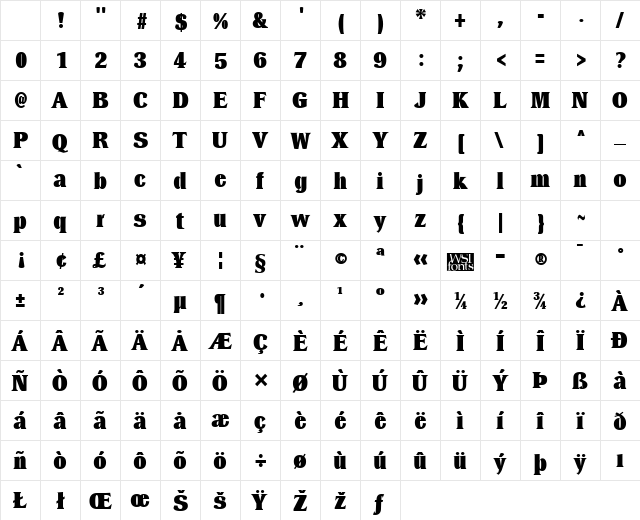
Dressel Black Regular
Complete Dressel Black Regular glyph index. Displaying only characters natively supported by Dressel Black Regular font.
Design Context for Dressel Black
Dressel Black is a composed and adaptable typeface that performs quietly and consistently across a wide range of design contexts.
Pro Tip: Use Dressel Black in both headline and body roles to test its range before committing to a single application.